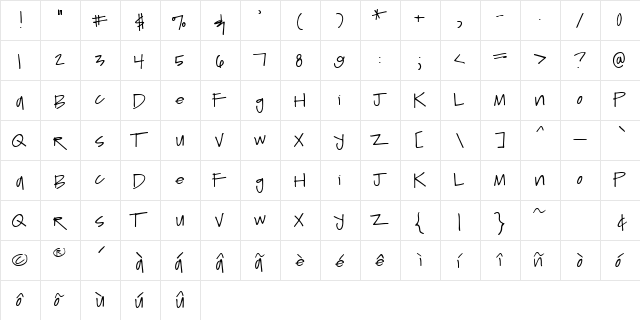
Liesly Regular
Design Context for Liesly Typeface
Liesly is a composed and adaptable typeface that performs quietly and consistently across a wide range of design contexts.